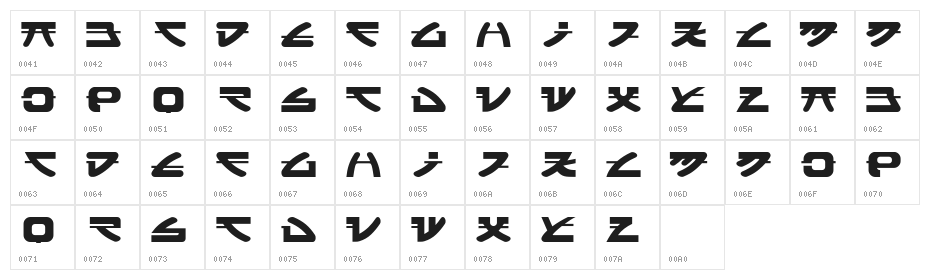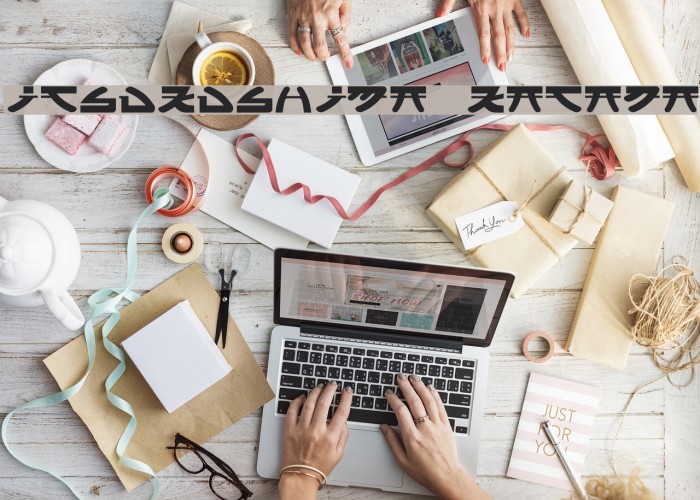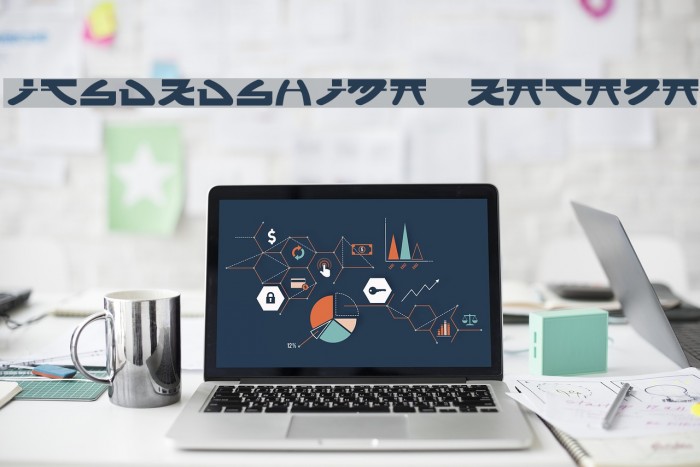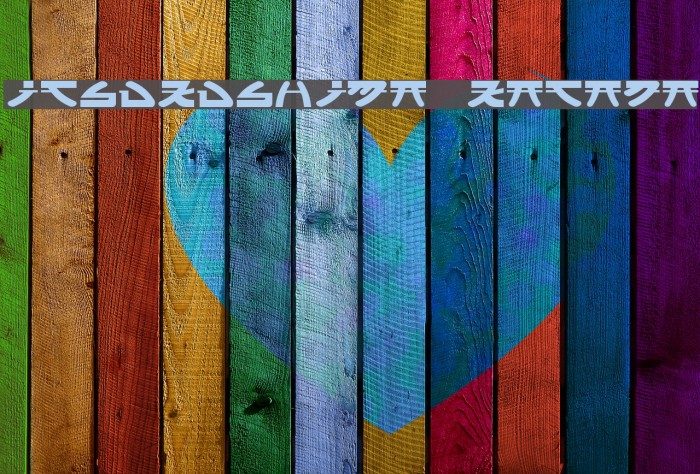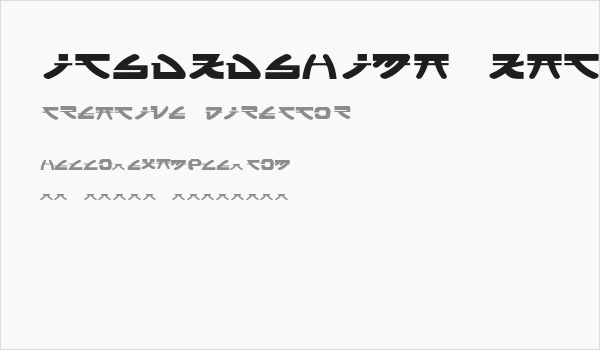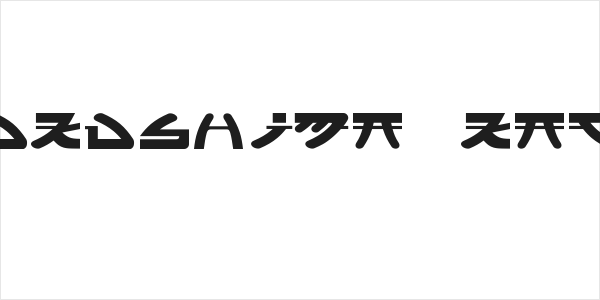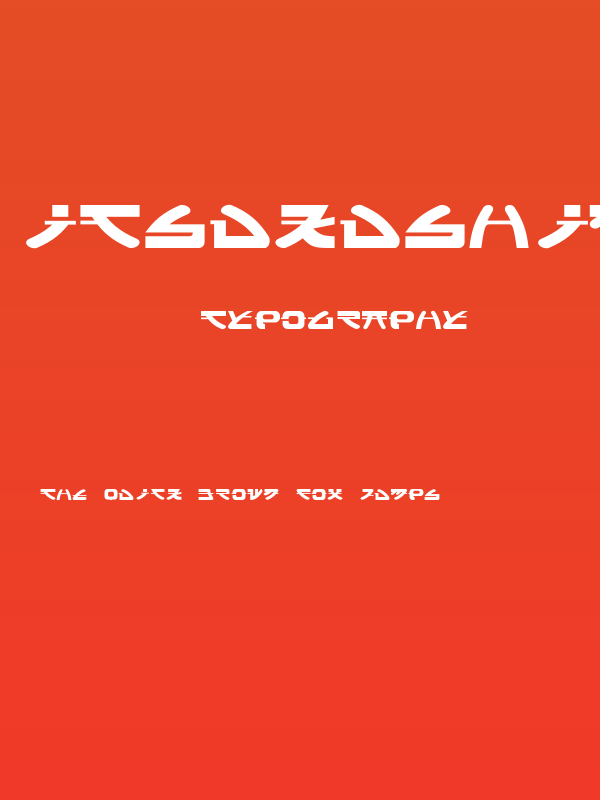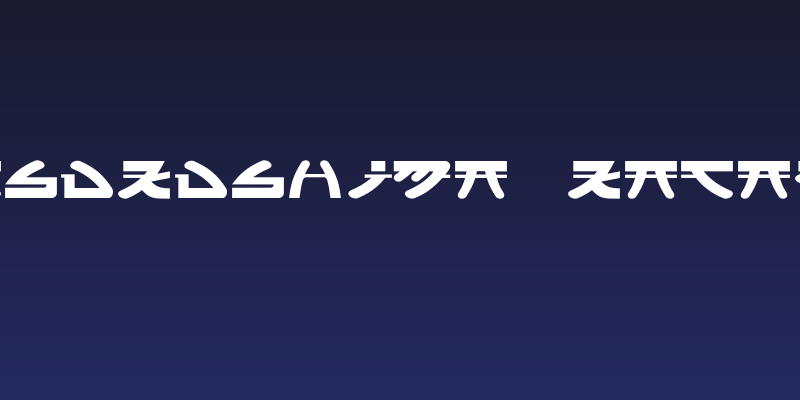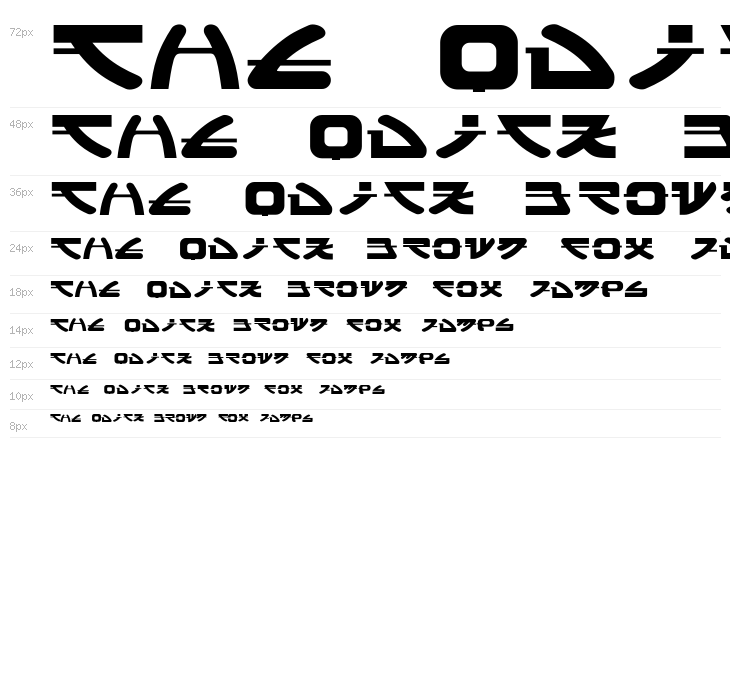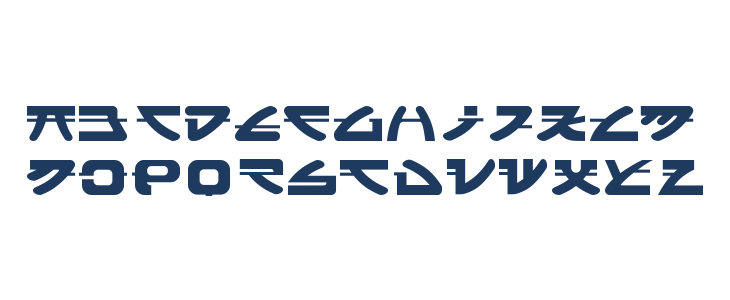
Itsukushima Katana Font
Itsukushima Katana Description
This font features a bold and futuristic design with geometric shapes and sharp angles. The characters are crafted with a unique blend of solid and cut-out sections, creating a dynamic and eye-catching appearance. The uppercase letters exhibit a consistent height and width, while the lowercase letters maintain a similar style, ensuring uniformity across the text. The numbers and special characters are designed to match the overall aesthetic, making them suitable for various creative applications. The font's distinct style is ideal for projects that require a modern and innovative look.
| Proposed Projects | Ideal for sci-fi themed designs, technology branding, video game titles, and modern posters. |